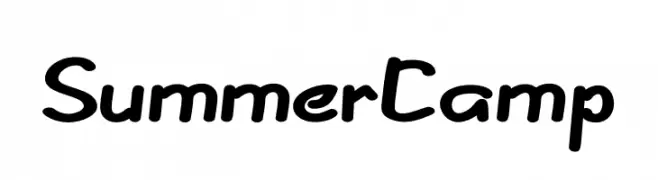
A modern, minimalist font with thin, uniform strokes and excellent readability.
An elegant script font with fluid, continuous strokes and a sophisticated style.
A playful, rounded handwritten font with a casual and friendly vibe.
A flowing, cursive script font with elegant, connected strokes.
A bold, hand-painted style font with a dynamic, brush-like texture.
A decorative font with letters inside heart shapes, featuring floral embellishments.
A casual, handwritten font with a dynamic and flowing style.
A bold, cursive font with fluid, interconnected letters and a dynamic style.
A bold, geometric sans-serif font with a modern double-line outline.
A playful, handwritten font with flowing, cursive-like strokes.
A bold, dynamic script font with a handwritten feel.
A modern, elegant sans-serif font with clean lines and balanced structure.
A bold, striped collegiate-style font with a nostalgic varsity feel.
A bold, distressed font with a vintage, rugged appearance.
A playful, handwritten-style font with consistent stroke thickness and a casual feel.
A bold, handwritten font with a playful and casual style.
A rugged, distressed font with a fiery, organic appearance.
A bold, dramatic blackletter font with intricate Gothic detailing.
A playful, handwritten font with a quirky and informal style.
A modern, geometric font with a clean and minimalist design.
A stylish, cursive script font with elegant, flowing lines.
A bold, angular font with a geometric and industrial style.
A bold, angular font with a modern geometric style.
A playful, bold font with rounded, hand-drawn characters.
A classic serif font with a modern touch, offering elegance and readability.
A playful, handwritten font with flowing, cursive-like letterforms.
A bold, dynamic script font with fluid, connected letterforms.
A bold, modern font with geometric shapes and clean lines.
A dynamic and expressive font with sharp, angular strokes and flowing curves.